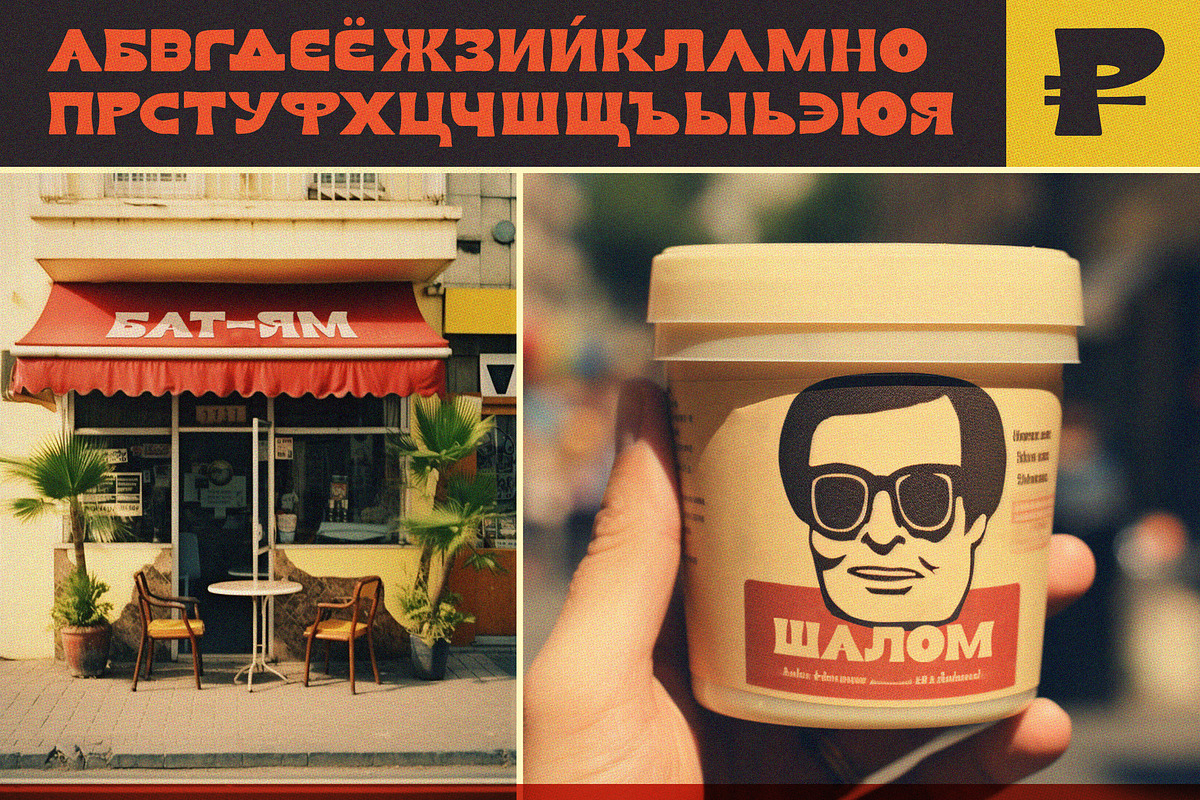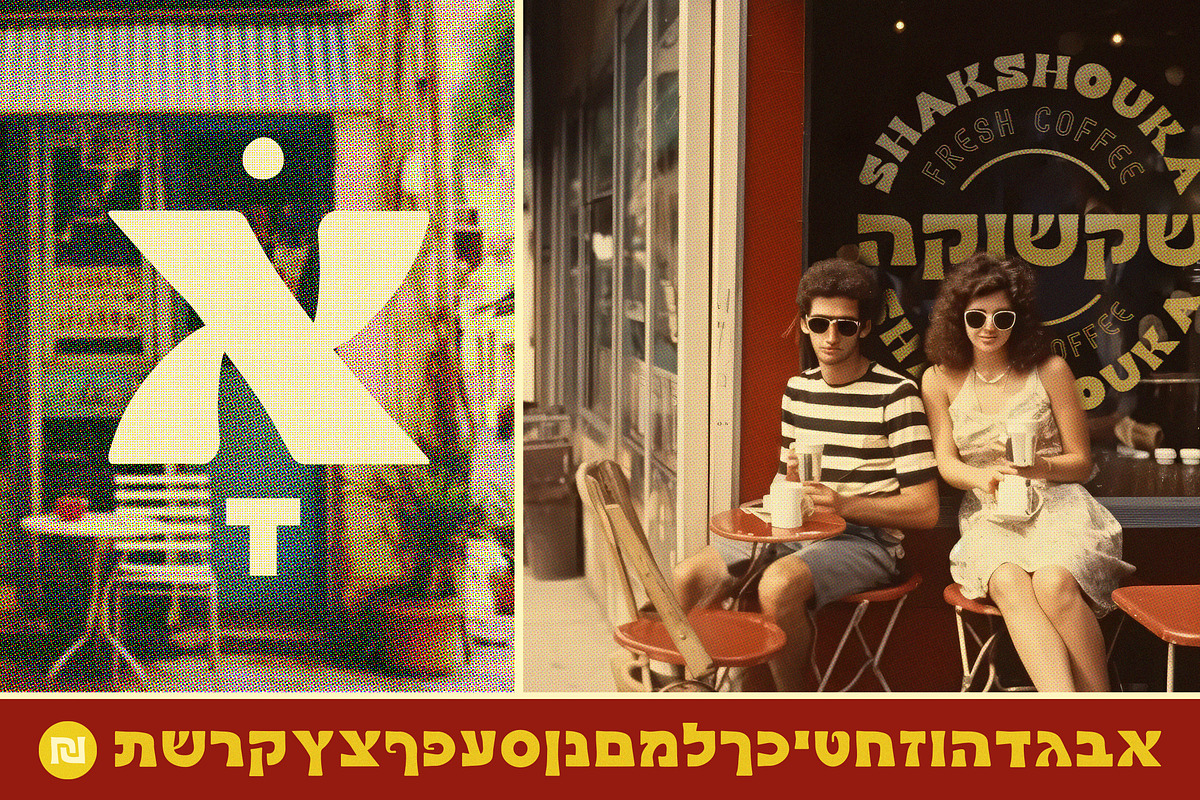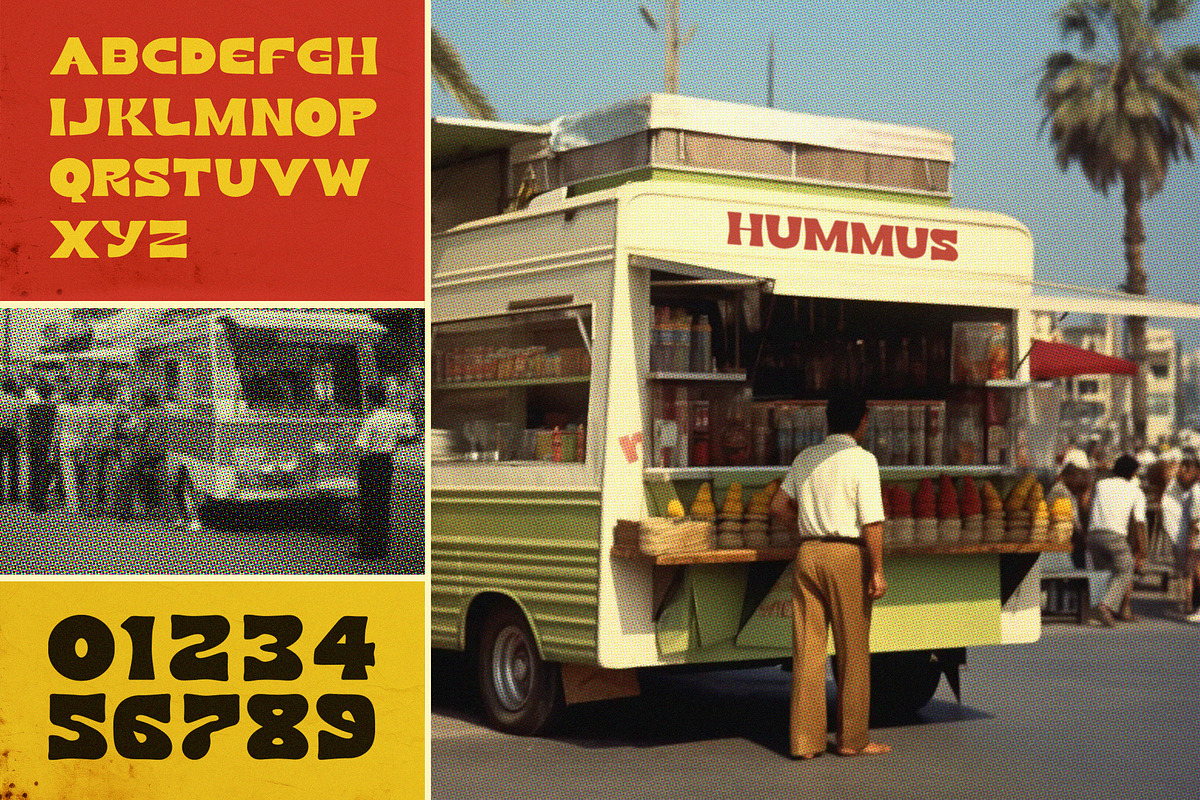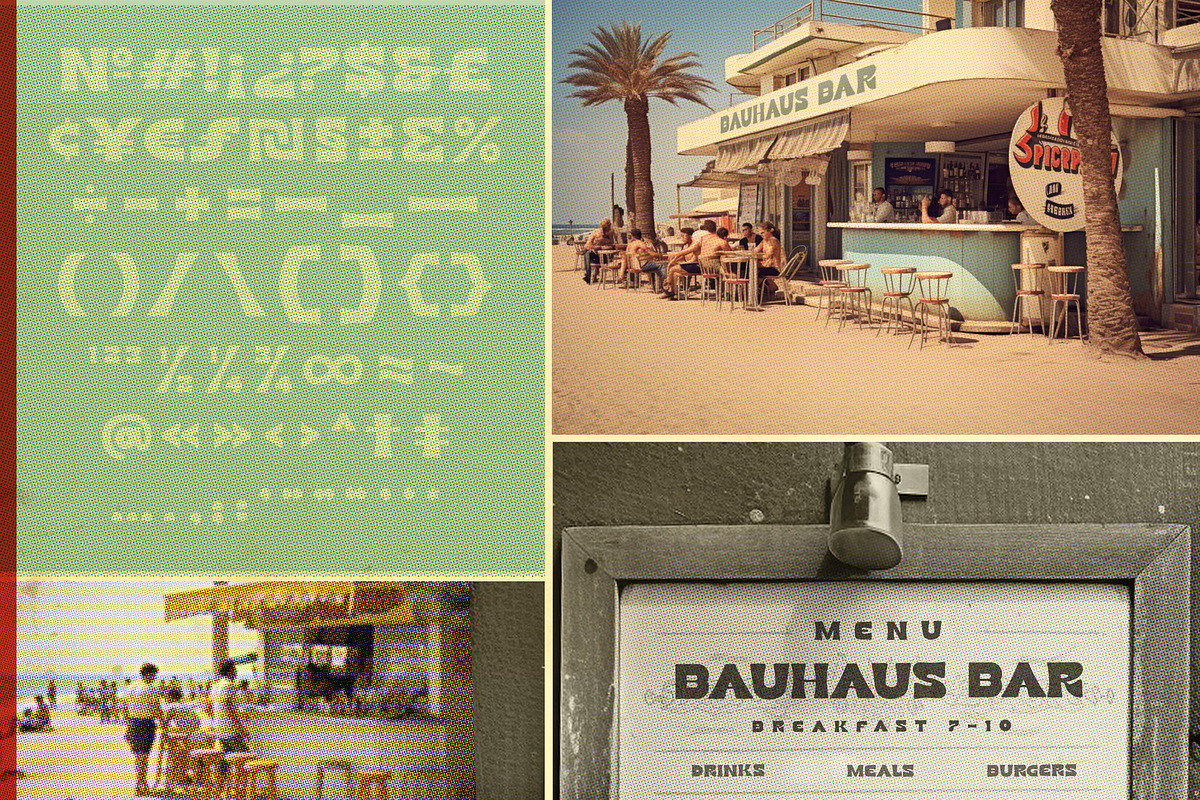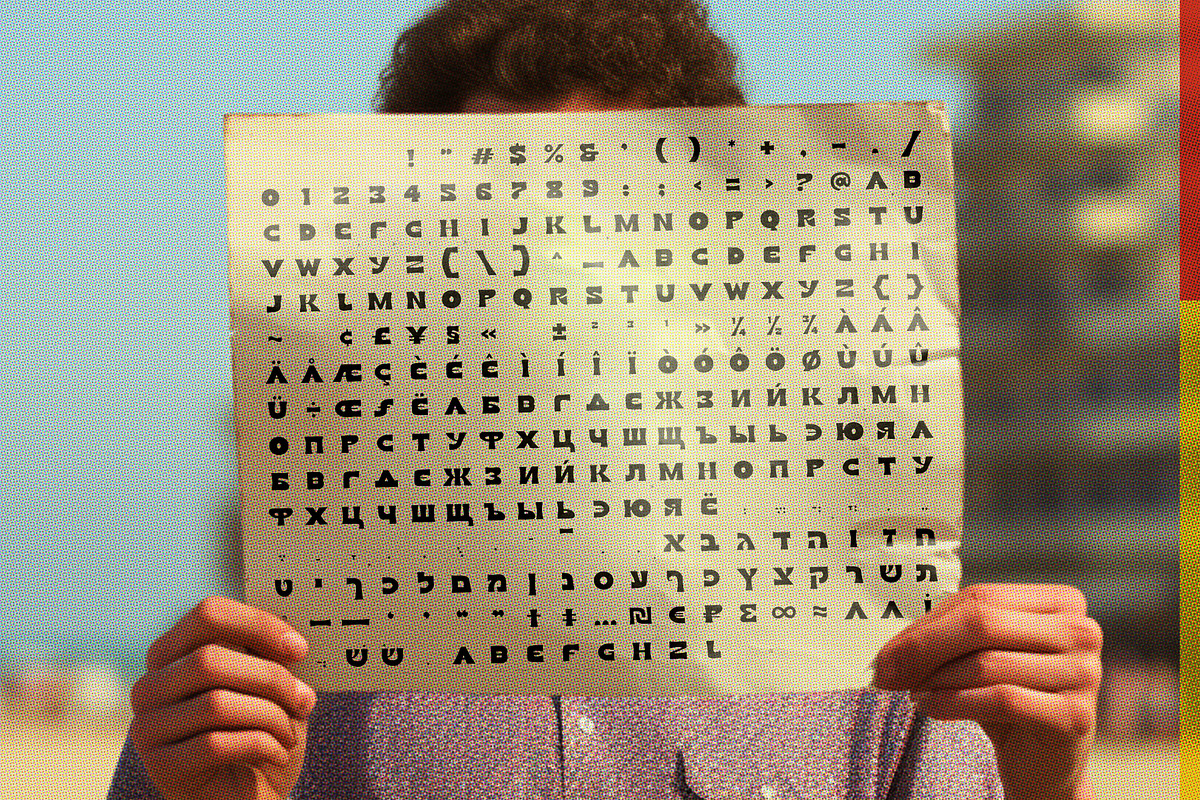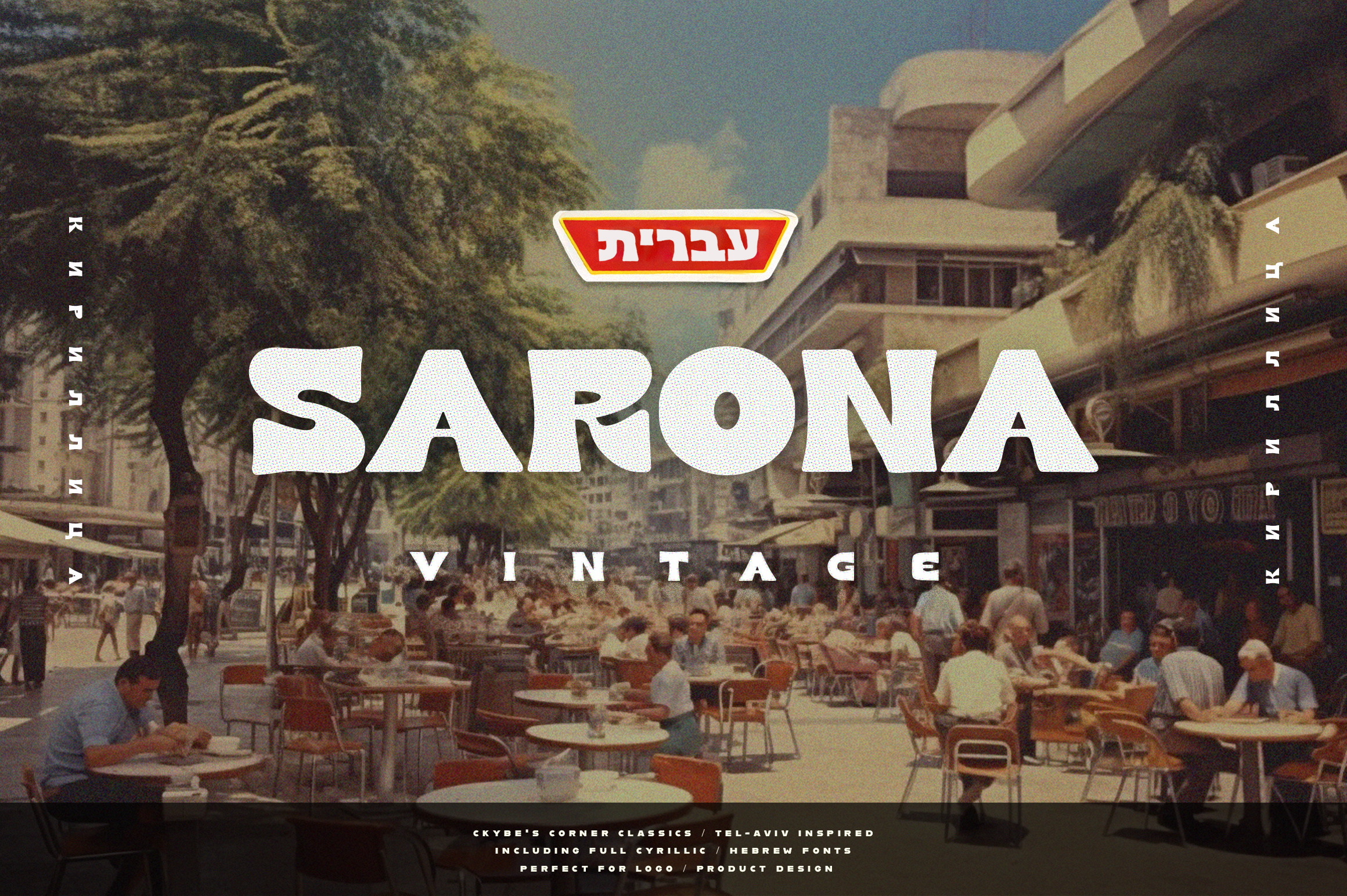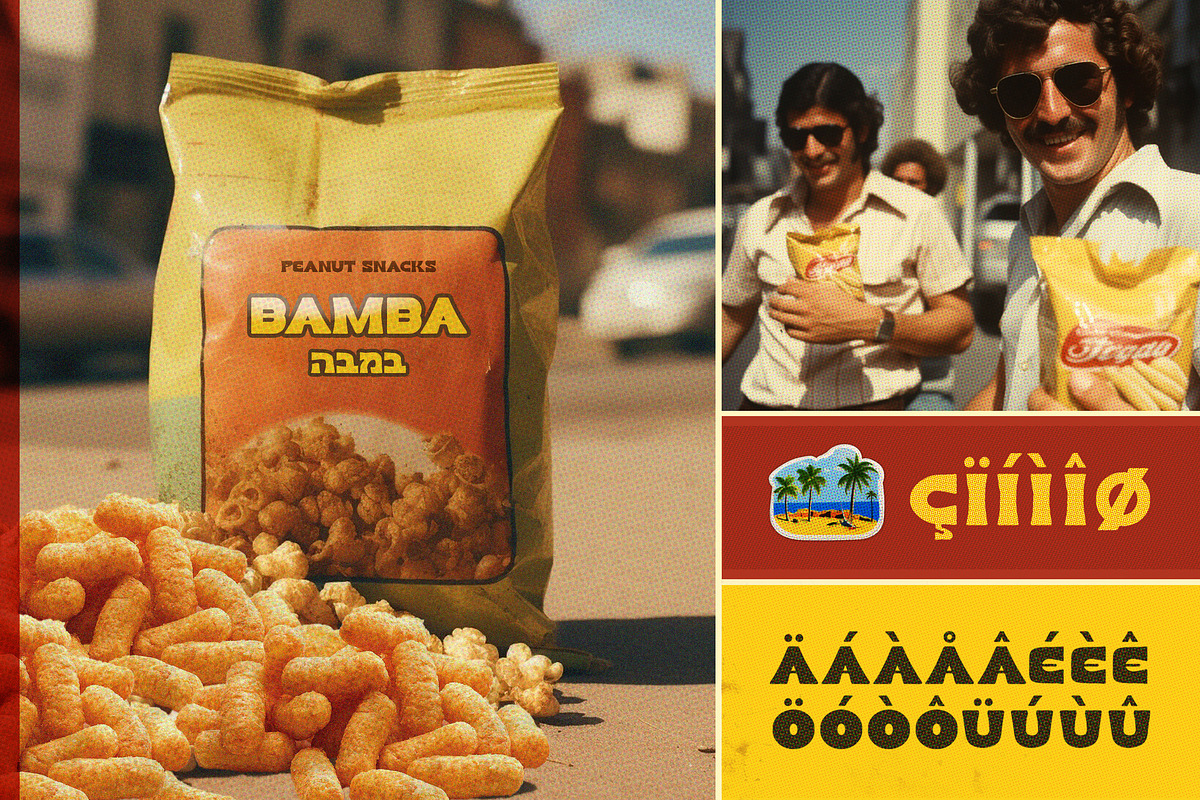
SARONA Vintage | TLV Inspired Font
Introducing SARONA Vintage, a captivating groovy retro typeface that pays homage to the vibrant and eclectic design spirit of 1970s Tel Aviv. This font is a seamless blend of nostalgia and modernity, capturing the essence of an era marked by bold experimentation and cultural dynamism.
Inspired by the unique visual language of in the 70s, SARONA Vintage features distinctive letterforms that exude a sense of retro flair. The font seamlessly combines Latin characters with Hebrew and Cyrillic letters, making it a versatile and inclusive typographic choice for a diverse range of design projects.
Incorporating the Hebrew and Cyrillic scripts into SARONA Vintage adds an extra layer of cultural richness and flexibility. Whether you're working on a global branding project, designing posters, or creating digital content, this font provides a harmonious fusion of three distinct writing systems, allowing your message to resonate across different linguistic and cultural landscapes.
With its bold strokes, dynamic curves, and meticulous attention to detail, SARONA Vintage stands as a testament to the enduring appeal of 1970s design while offering a contemporary twist. Elevate your designs with a touch of retro sophistication and cross-cultural resonance using SARONA Vintage, the font that transcends borders and eras.